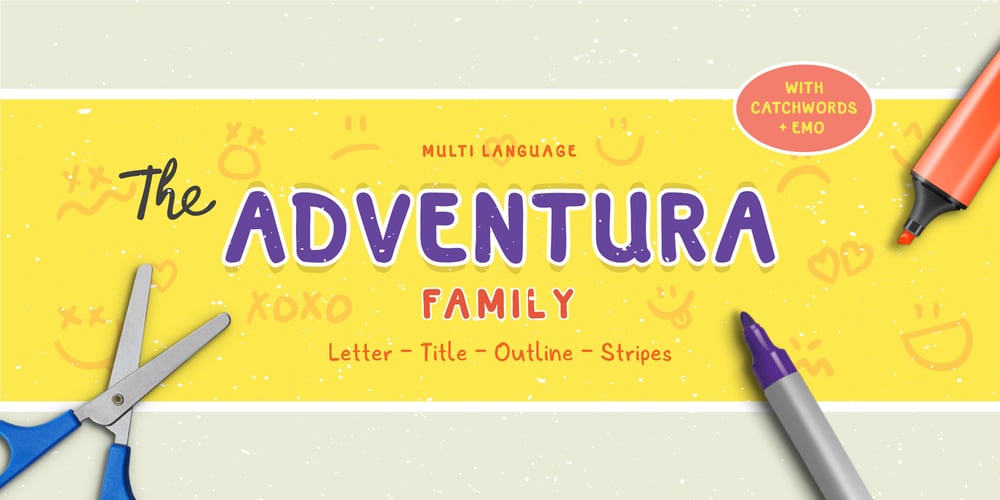
Adventura Font Family was designed by Rendy Yanwar and published by me55enjah. Adventura contains 7 styles and family package options. Handmade typeface inspired by permanent marker strokes. Simple, bold and casual shape strokes make this typeface easy to read event in a bunch of text. This can be useful for title, quotes, label, etc. Simple, casual and playful. All caps family comes with different style: Title, Outline and Stripes. Including handwritten style, Adventura Letter with uppercase & lowercase characters, make you have more option to create catchy design. All support basic multi language. Add Adventura Catchwords and Emo icons can gives more personal touch to your design.